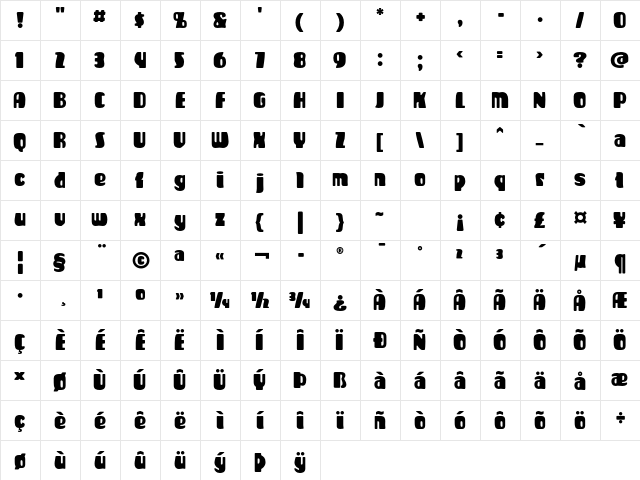
Liverpool ITC Std Regular
| Designer | Kevin Bailey |
Design Context for Liverpool ITC Std Typeface
Liverpool ITC Std is a composed and adaptable typeface that performs quietly and consistently across a wide range of design contexts.